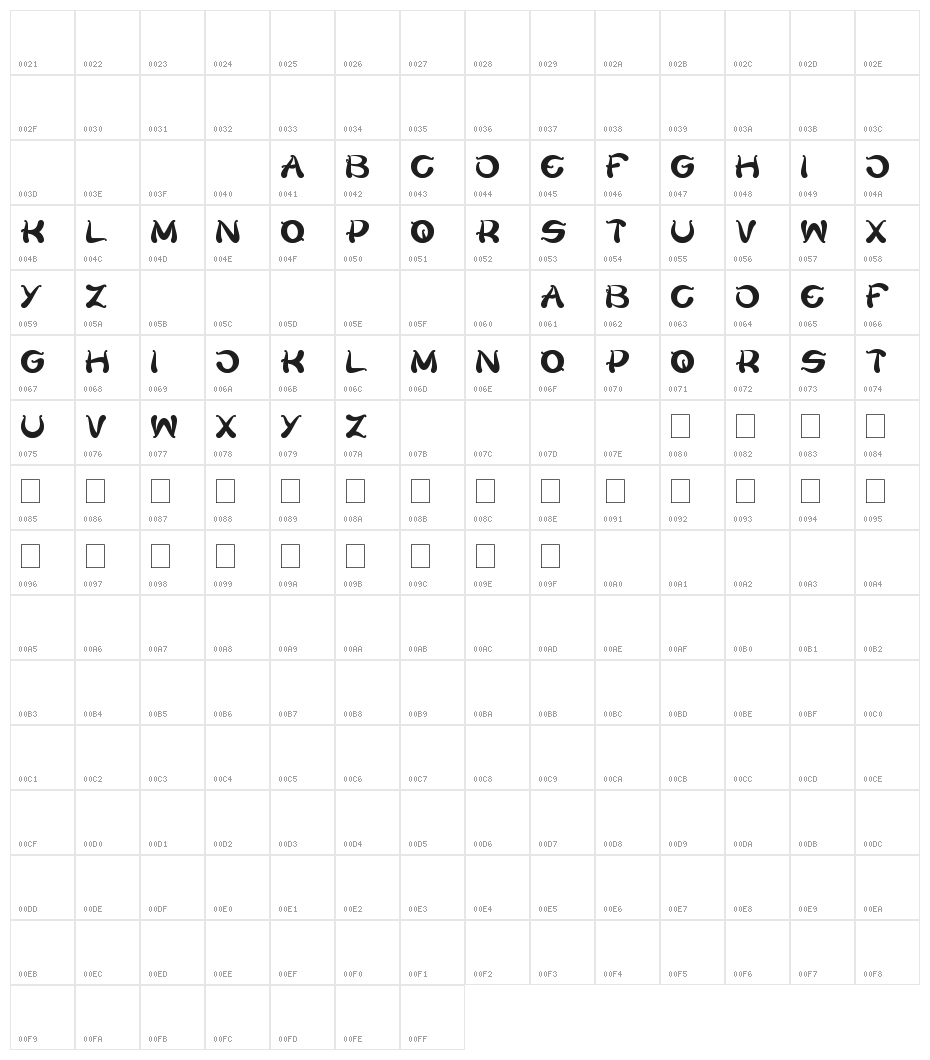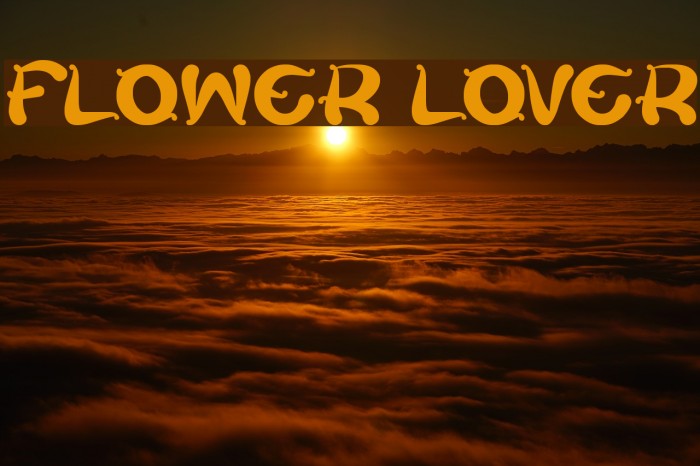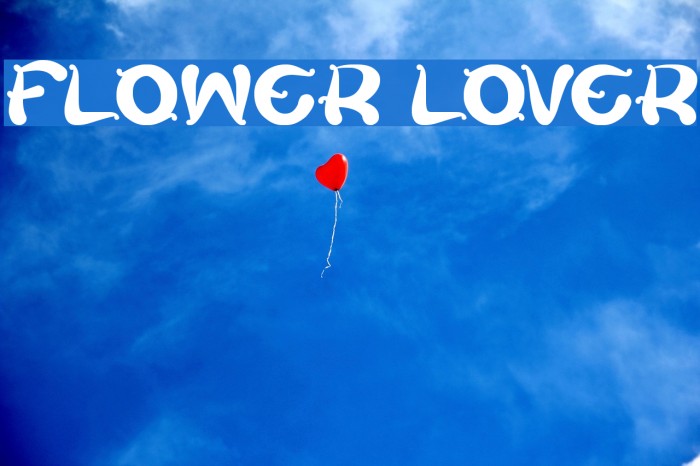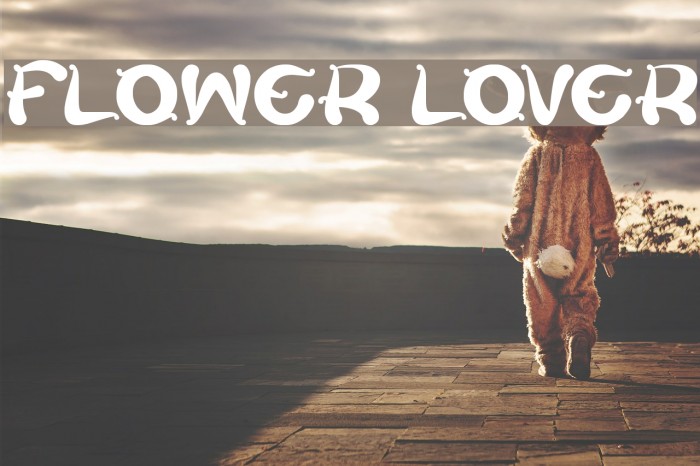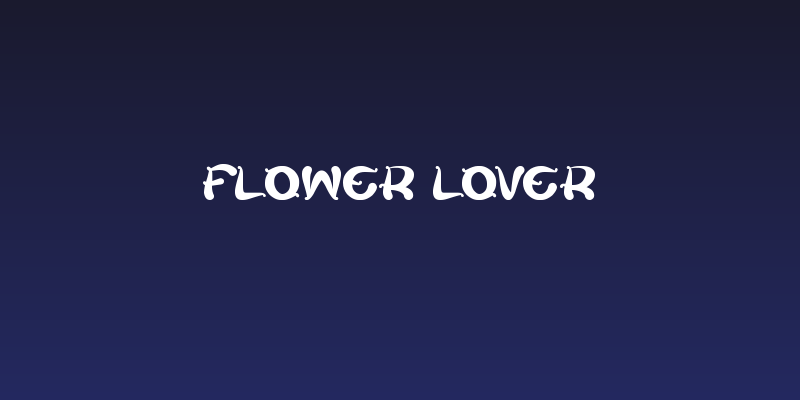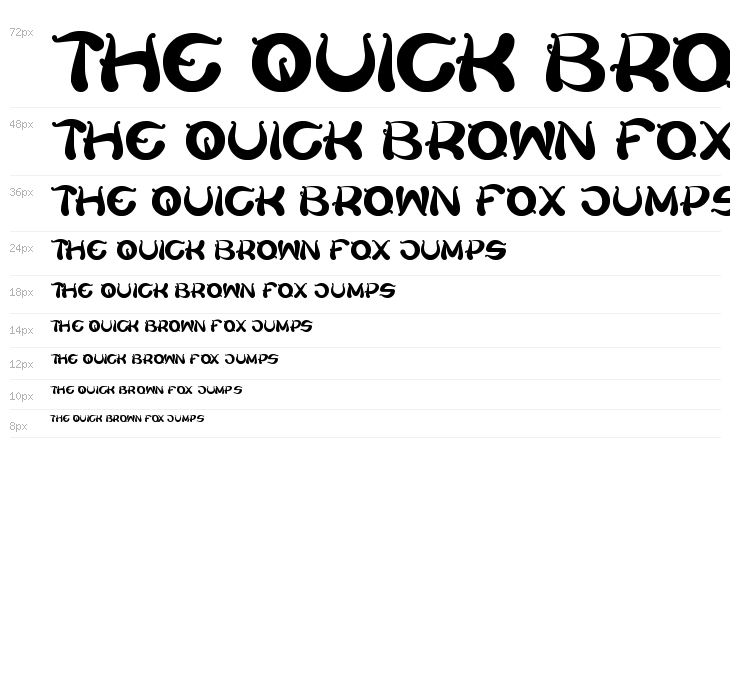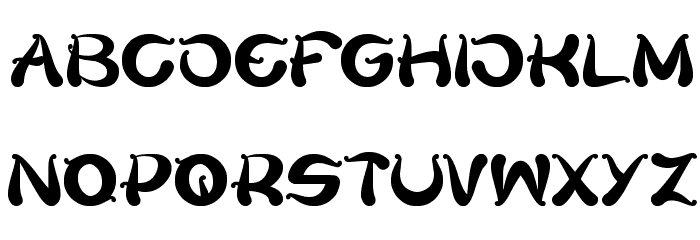
flower lover Font
flower lover Description
This font features a playful and decorative style with unique, organic shapes that resemble petals or leaves extending from the characters. The strokes are bold and rounded, giving it a whimsical and artistic appearance. Each letter is distinct, with varying stroke thickness that adds to its charm. The overall design is reminiscent of nature, making it ideal for projects that require a touch of creativity and flair. The font maintains readability while incorporating intricate details that make it stand out.
| Proposed Projects | Ideal for greeting cards, children's books, eco-friendly branding, and artistic posters. |